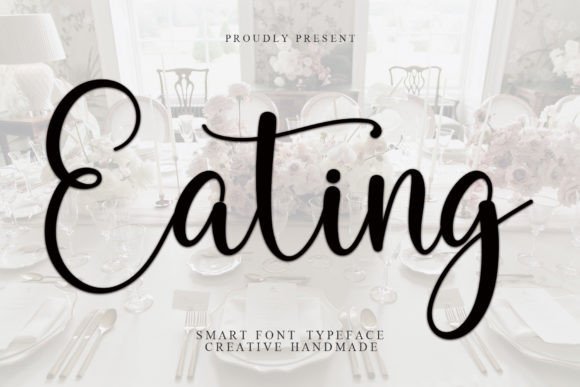
Introducing Eating Font, the perfect script font for all your branding needs. Created by FreshTypeINK, this gorgeous and bold handwritten font is sure to leave a lasting impression.
With its confident and dynamic style, Eating Font adds tons of nostalgic character to your designs. Whether you're designing a logo, creating a website, or crafting a social media post, Eating Font is the perfect way to elevate your brand and stand out from the crowd.
But Eating Font isn't just a pretty face - it's also incredibly versatile. Its elegant curves and graceful loops make it ideal for everything from wedding invitations to product packaging. Plus, it's easy to read, ensuring that your message gets across loud and clear.